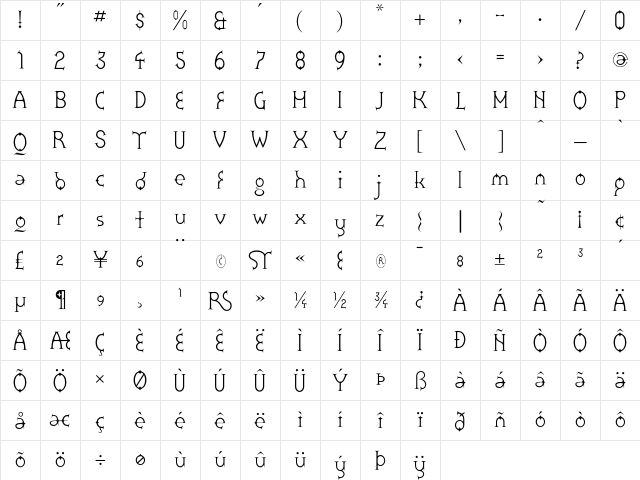
Complete Zoroaster Light glyph index. Displaying only characters natively supported by Zoroaster Light font.
Zoroaster is a composed and adaptable typeface that performs quietly and consistently across a wide range of design contexts. Its slender proportions lend an understated elegance to any composition.